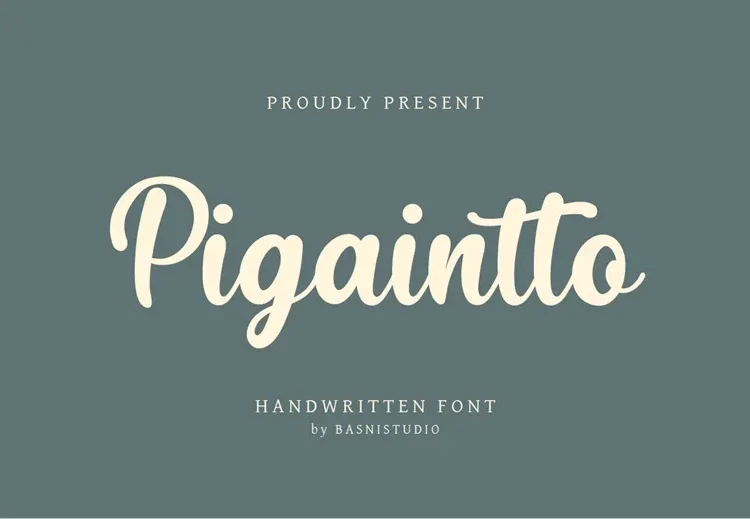
Pigainto Font
Pigaintto Handwritten Font is a creation born from love and precision, designed to elevate branding, websites, and editorial projects. Its smooth curves and stylish details make it the perfect choice for designers seeking a handwritten touch with a professional flair.
This font includes every type of character, multilingual support, and punctuation, offering versatility for various projects. With OpenType features, Pigaintto provides seamless access to bindings and stylistic elements, ensuring a polished and creative output for every use.
Whether you’re crafting logos, enhancing websites, or designing captivating editorials, Pigaintto Handwritten Font offers the perfect balance of elegance and readability. Its sophisticated aesthetic ensures it will stand out in any context.